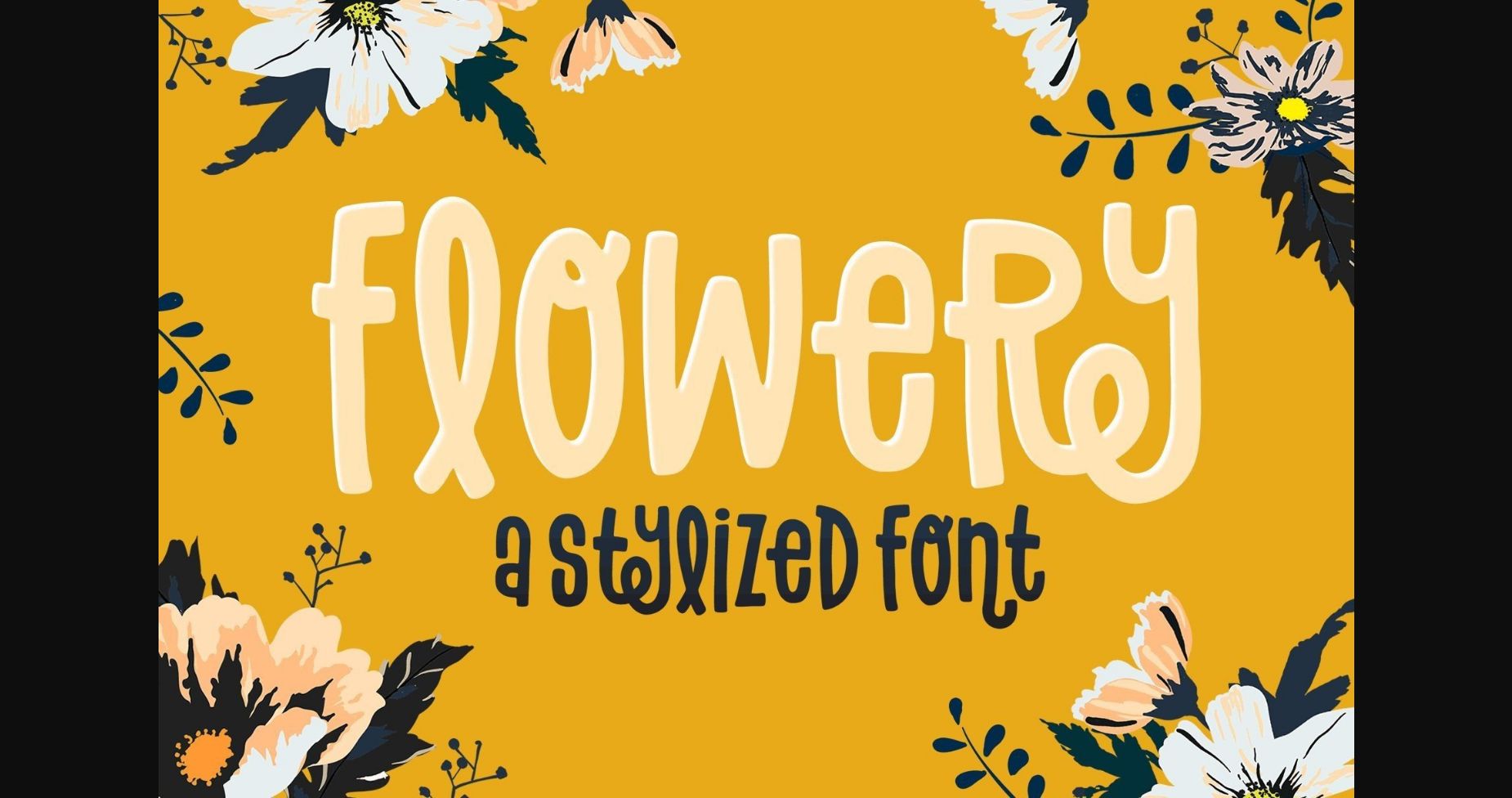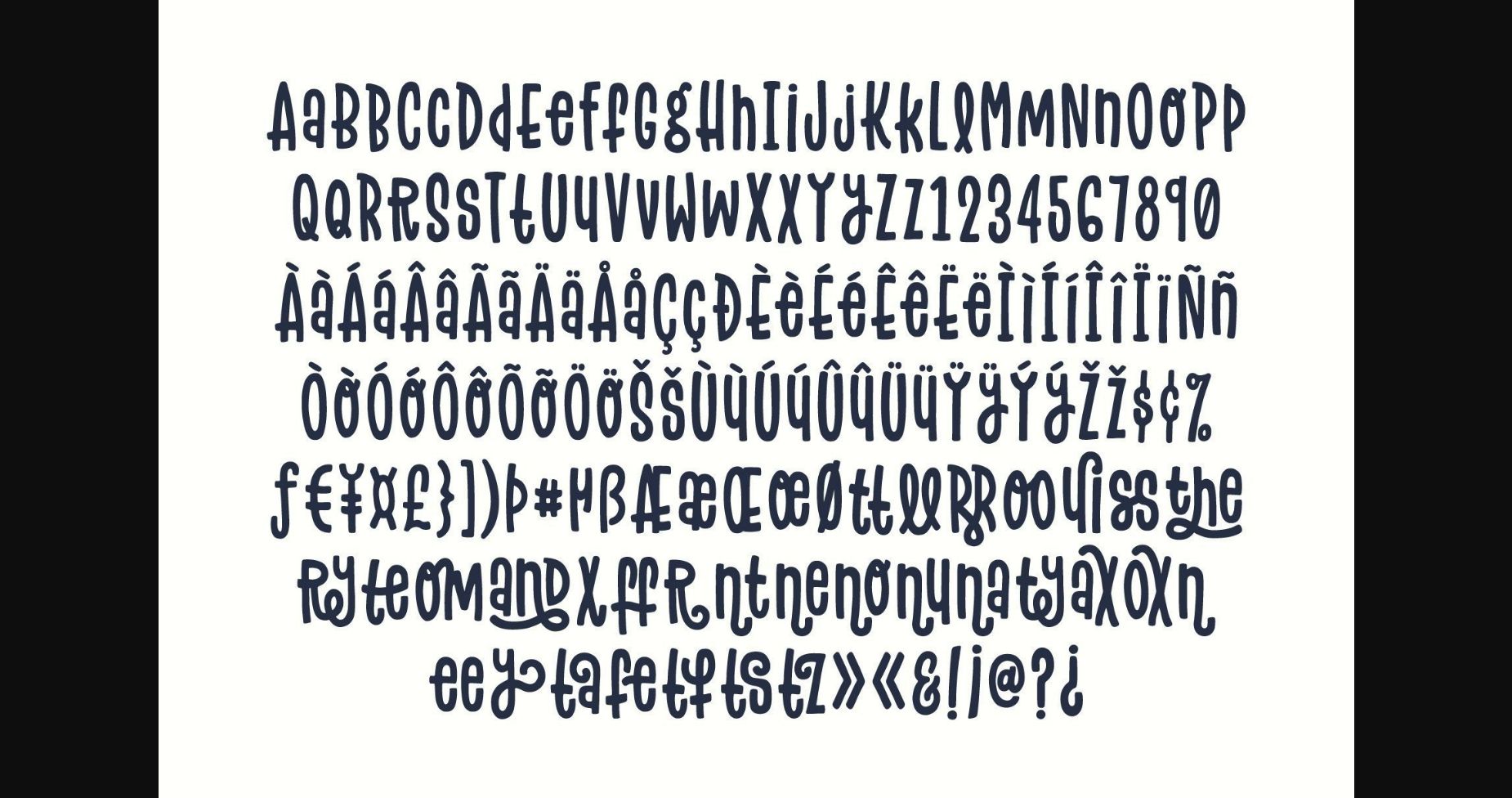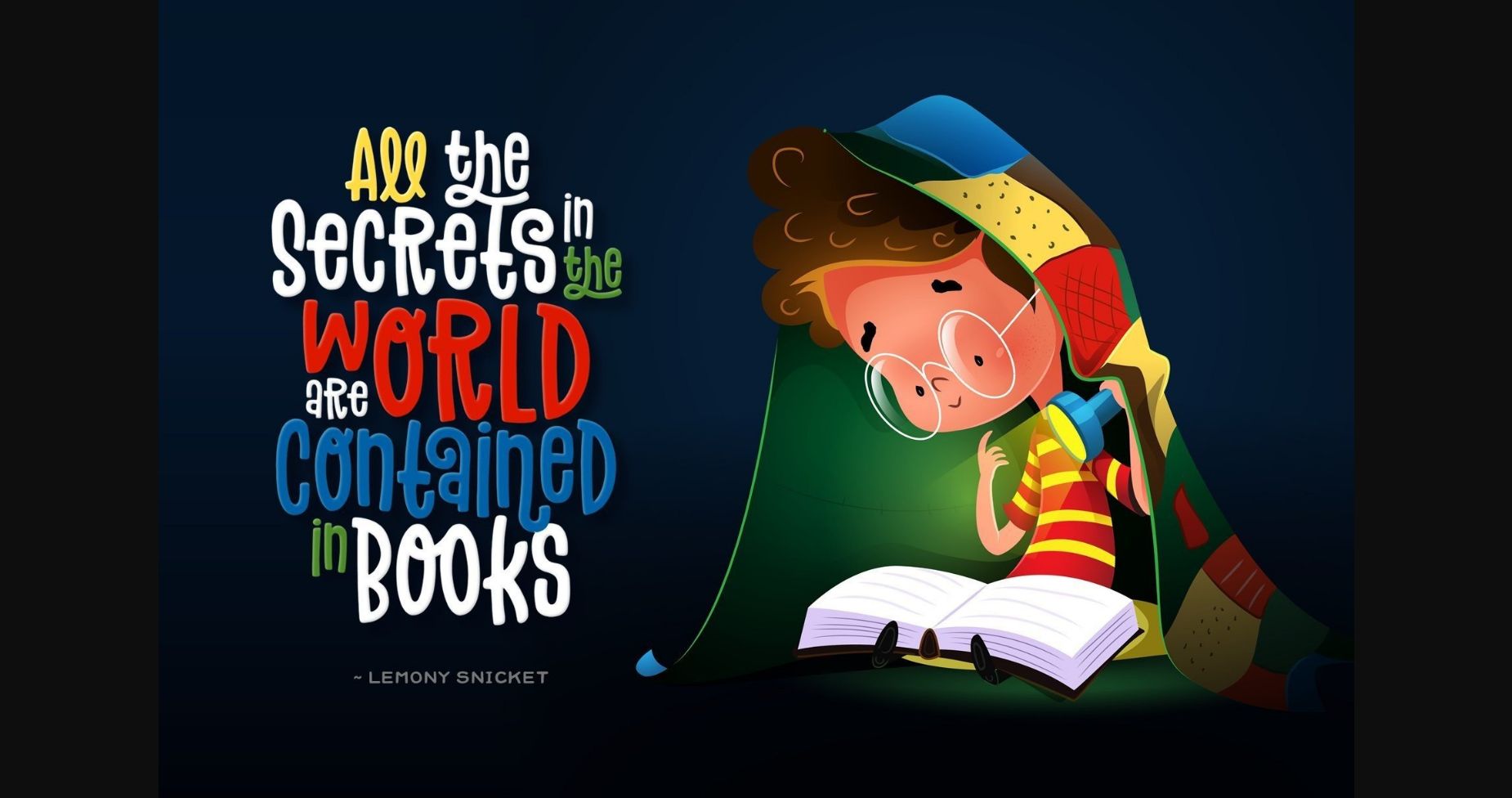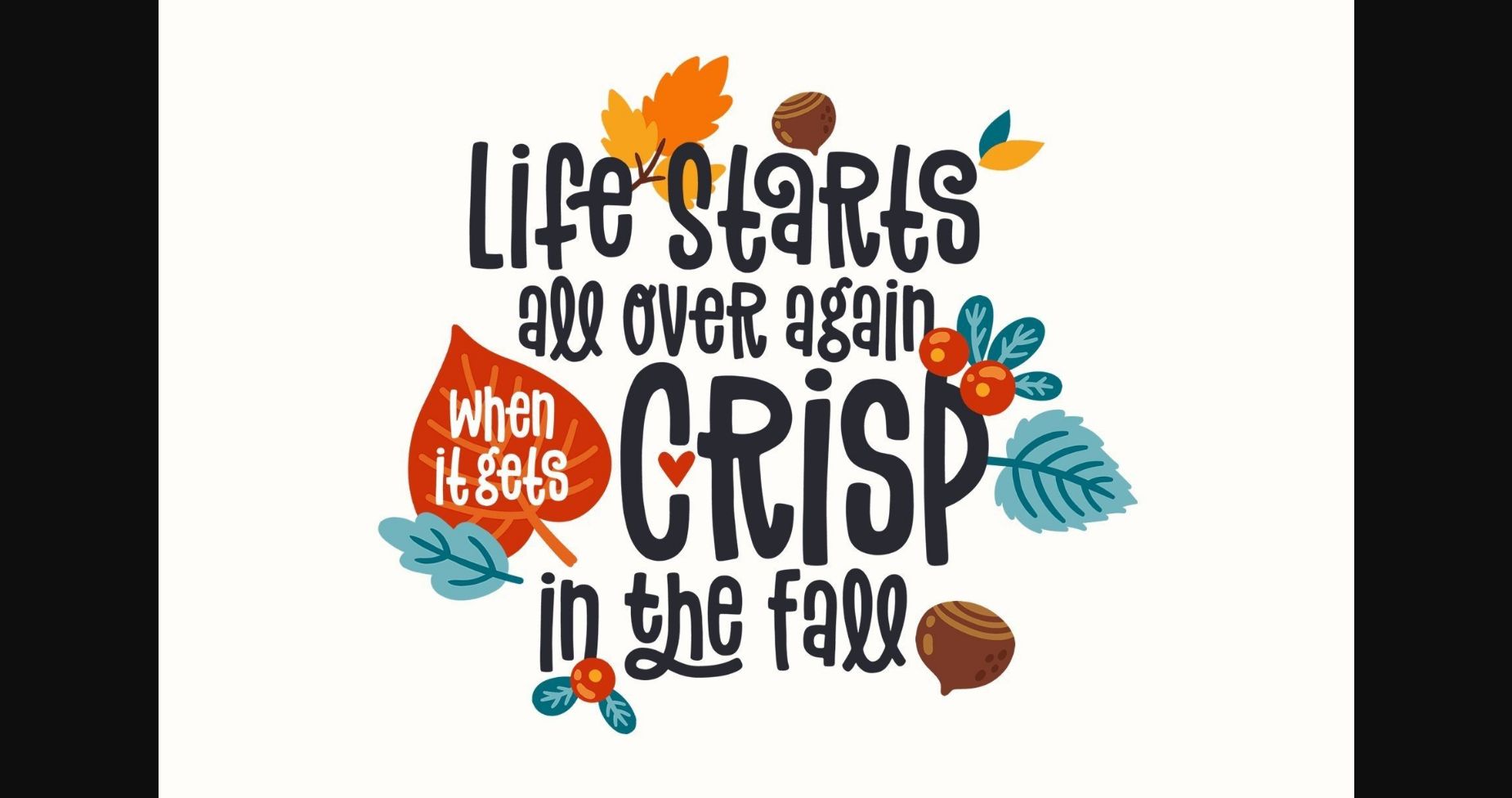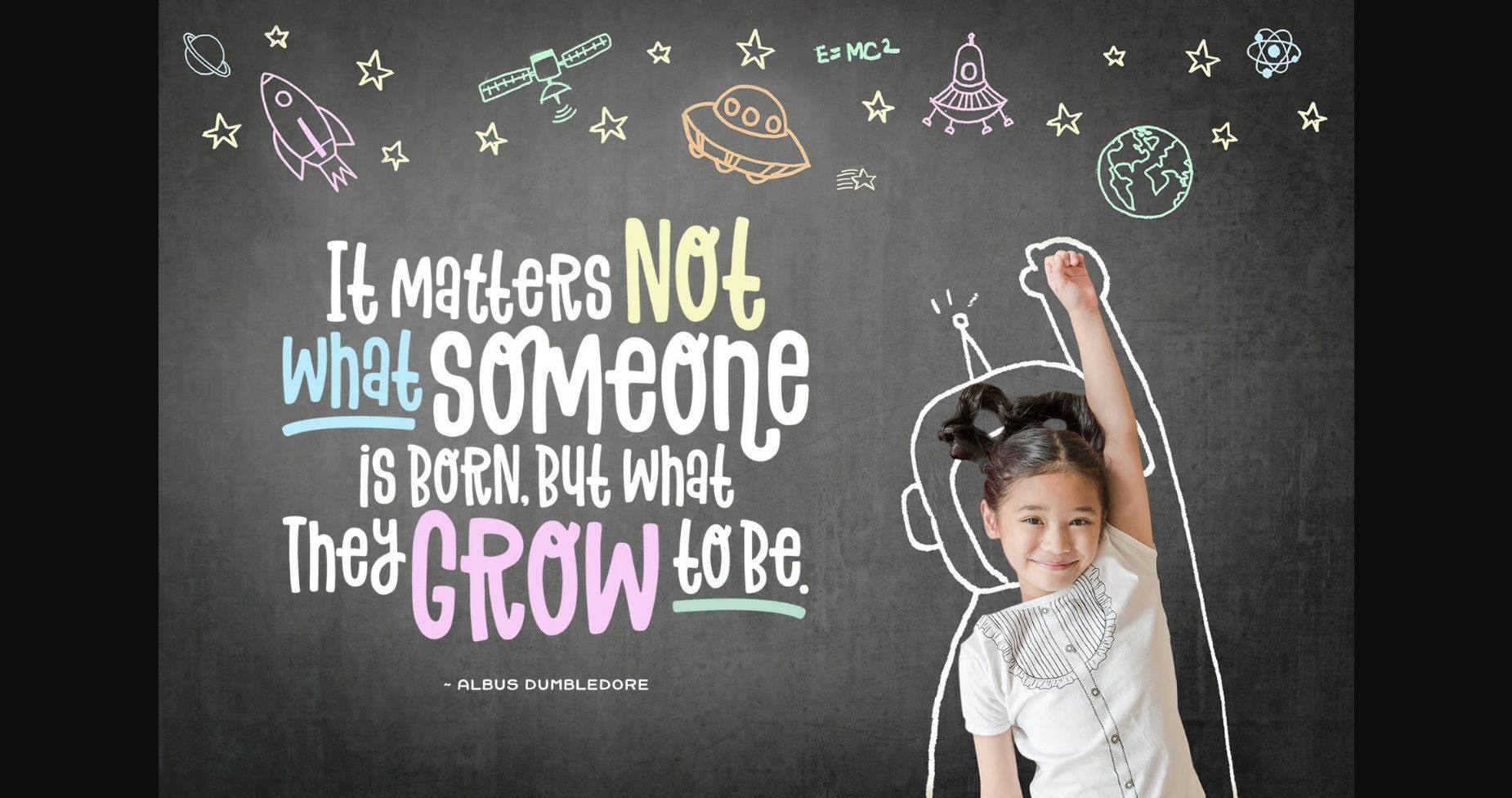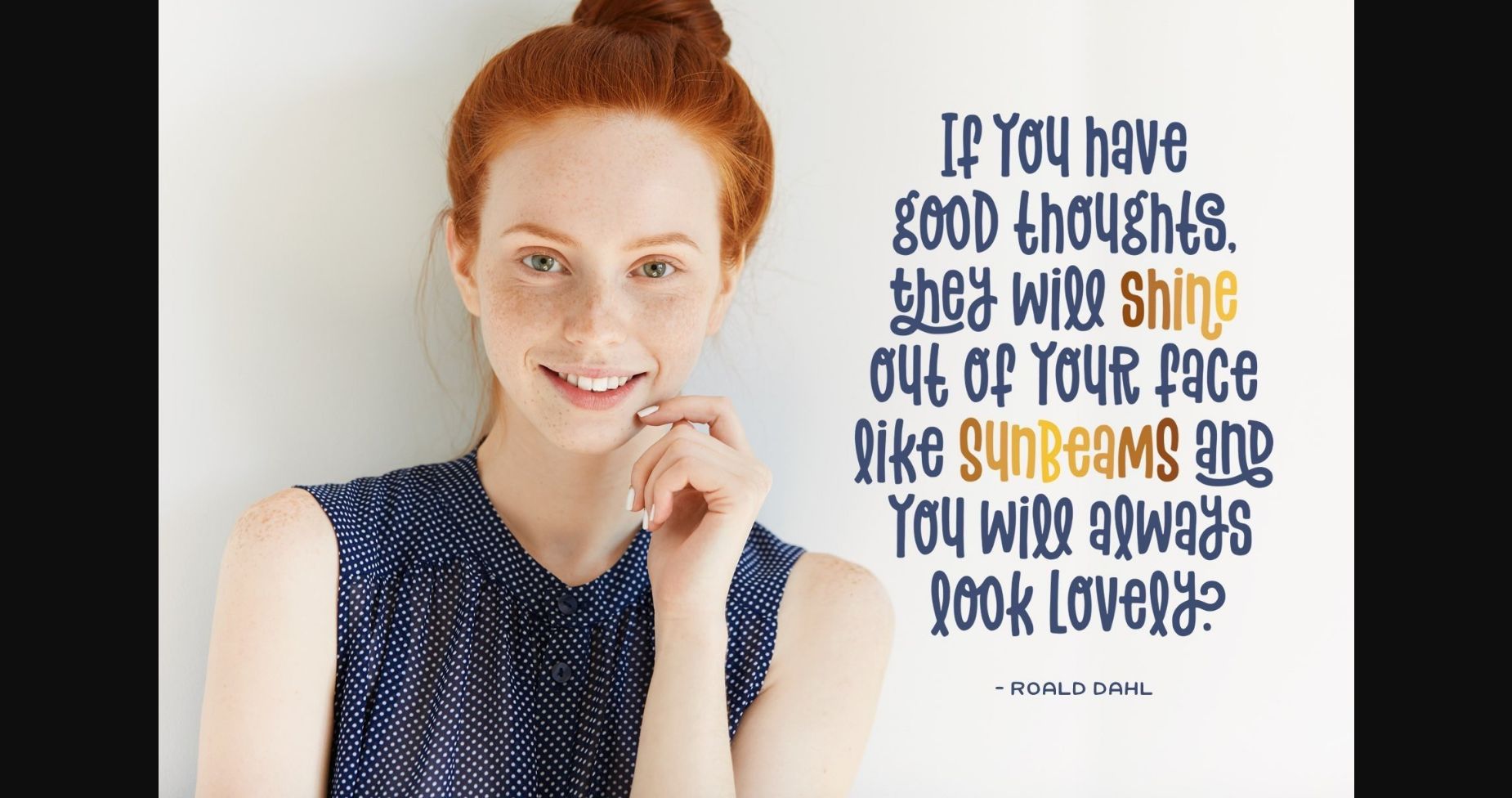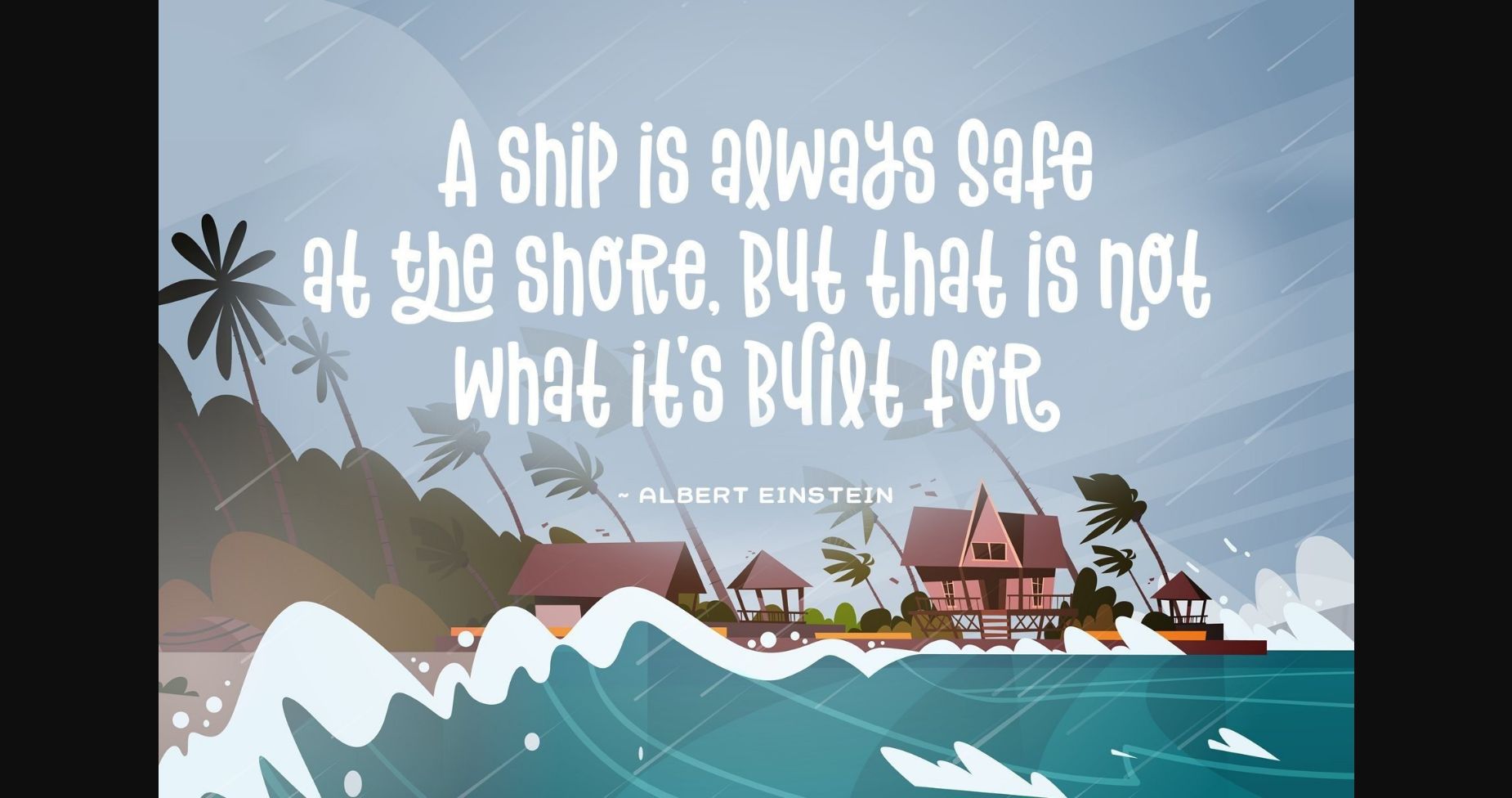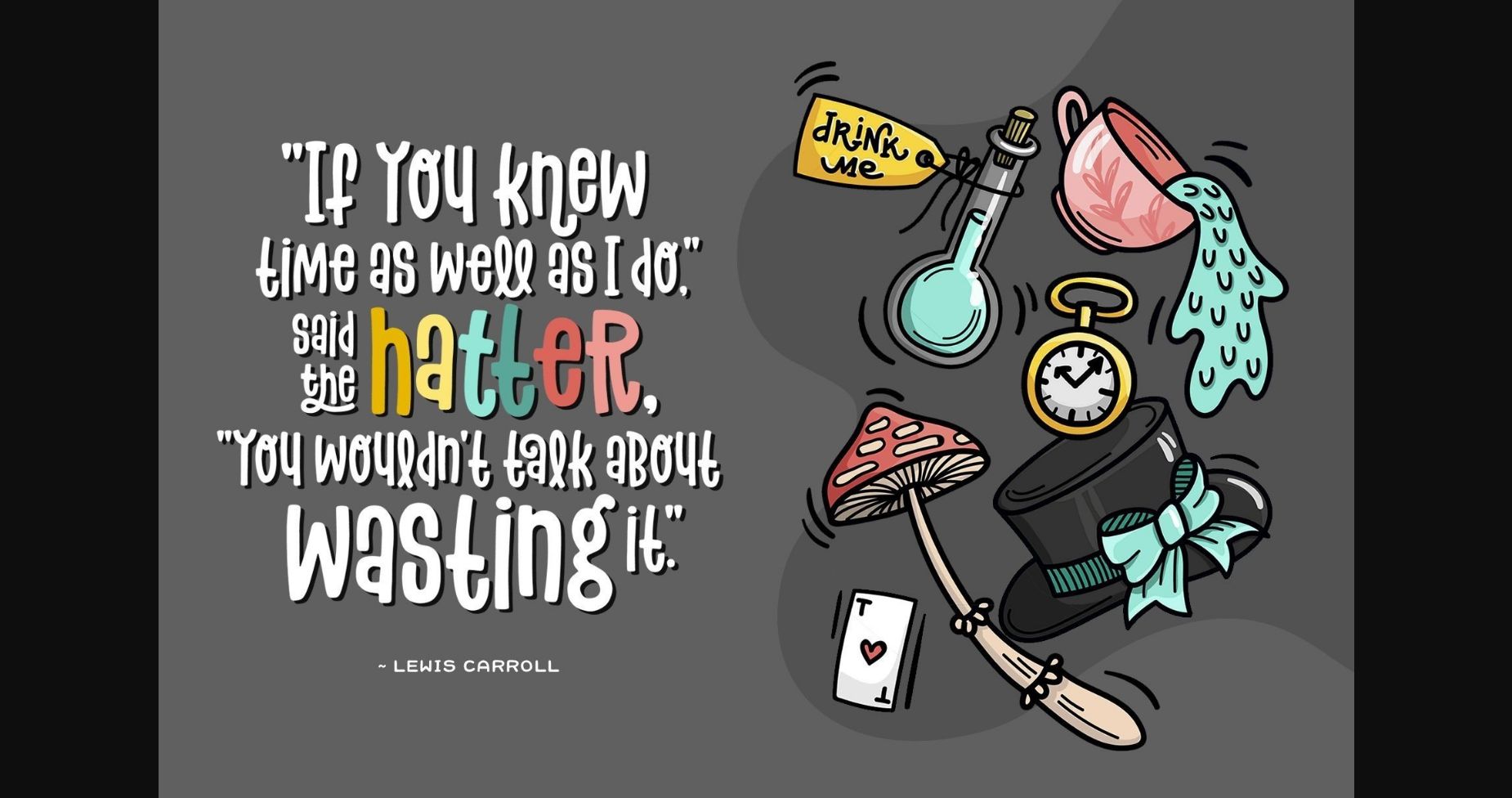
Flowery is a sweet sans font bursting with charm. It comes in two variations, ligatures, and alternate characters. Standard ligatures will appear automatically in programs that support OpenType and have the feature turned on.